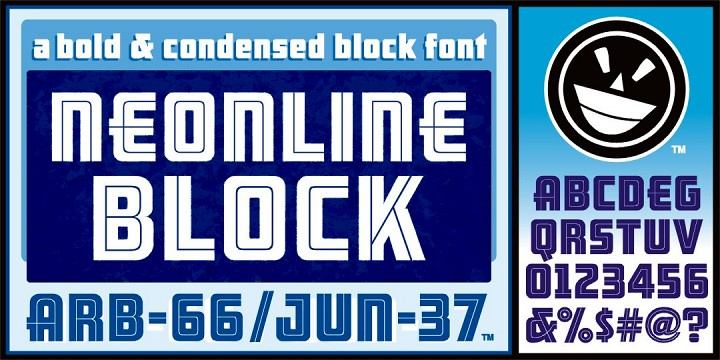
Font name: | ARB-66 Neon JUN-37 |
Author: | Fontry |
Note by Fontry | |
Beginning in January, 1932, Becker, at the request of then-editor E. Thomas Kelly, supplied "SIGNS of the Times" magazine's new Art and Design section with an alphabet a month, a project predicted to last only two years. Misjudging the popularity of the "series," it instead ran for 27 years, ending finally two months before Becker's death in 1959, for a grand total of 320 alphabets, a nearly perfect, uninterrupted run. In late 1941, almost ten years after the first alphabet was published, 100 of those alphabets were compiled and published in bookform under the title, "100 Alphabets," by Alf R. Becker. As published in June, 1937, this is the description that accompanied Becker's 66th alphabet, Neonline Block: NEONLINE BLOCK, alphabet No. 66 in Alf R. Becker's SIGNS of the Times series, is a very bold, modern style for feature display lettering. Care should be taken in the laying out of this alphabet, and every letter should be made as bold as possible. For commercial use please feel free to contact us for price, links and details at: the_fontry@yahoo.com or visit the Fontry website http://www.thefontry.com/ |